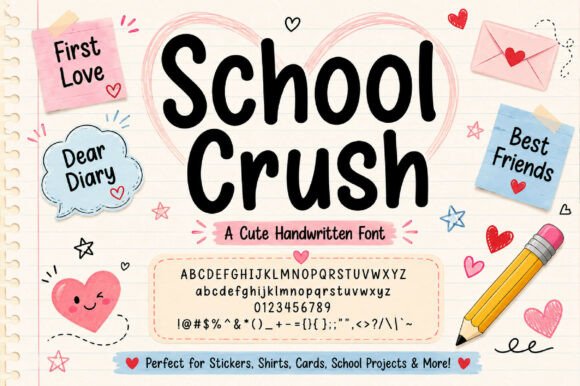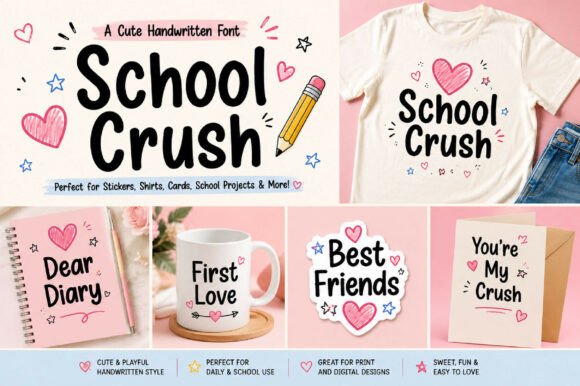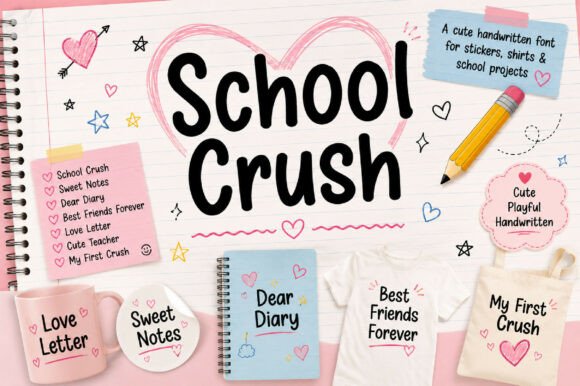
Introduction to School Crush Font
Introducing School Crush – the spirited, handwritten display font that embodies a youthful vigor, effortlessly capturing the charm of schoolyard sketches.
This cheerful typeface flourishes with its balanced blend of rounded lines and friendly letterforms, curating an inviting persona marked by cuteness, casualness, and creativity School Crush showcases an effervescent handwritten style, making it a brilliant contender for brightening up classroom materials, children’s literature, posters, stickers, school assignments, social media posts, clothing, and even whimsical brand designs.
Key Features of School Crush Font
Why Choose School Crush Font?